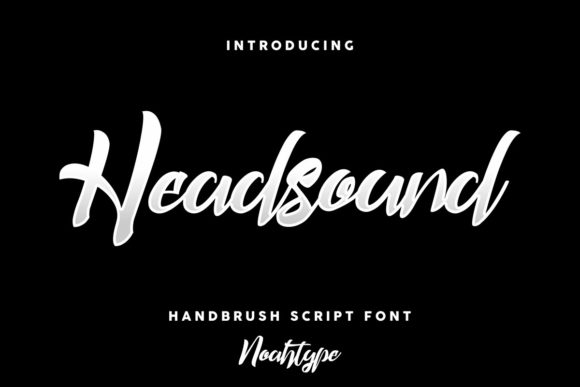
Introducing Headsound Font, the captivating script font that will elevate your creative projects to new heights. Inspired by the timeless elegance of classic calligraphy, Headsound effortlessly combines style and functionality, striking the perfect balance between thin and thick strokes.
Immerse yourself in the world of Headsound, where every letter dances with grace and precision. Its contemporary atmosphere breathes new life into your designs, while its impeccable form ensures effortless readability. Headsound is not just a font; it's a gateway to endless possibilities.
Whether you're crafting invitations that whisper elegance, designing logos that exude sophistication, or creating social media posts that capture attention, Headsound is your perfect companion. Its versatility knows no bounds, adapting seamlessly to any project that demands a touch of class.
Experience the joy of creating with Headsound and let your imagination soar. Its timeless appeal will leave a lasting impression on your audience, turning your projects into masterpieces that speak volumes.
Don't just read about Headsound; dive into its enchanting world and discover the transformative power of a truly remarkable font. Let Headsound become your muse, guiding you towards creative brilliance. Embrace the elegance, embrace the possibilities, embrace Headsound.